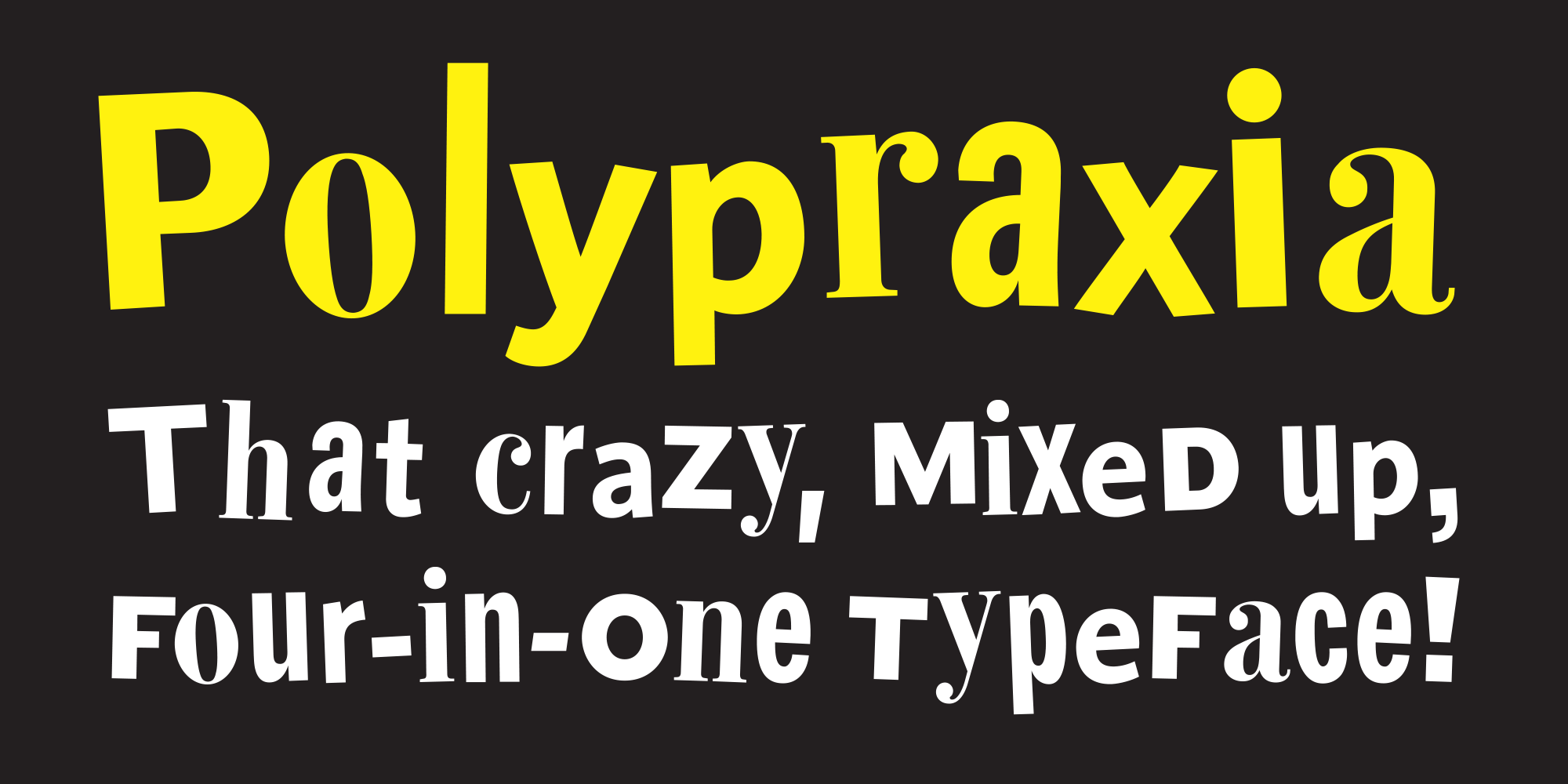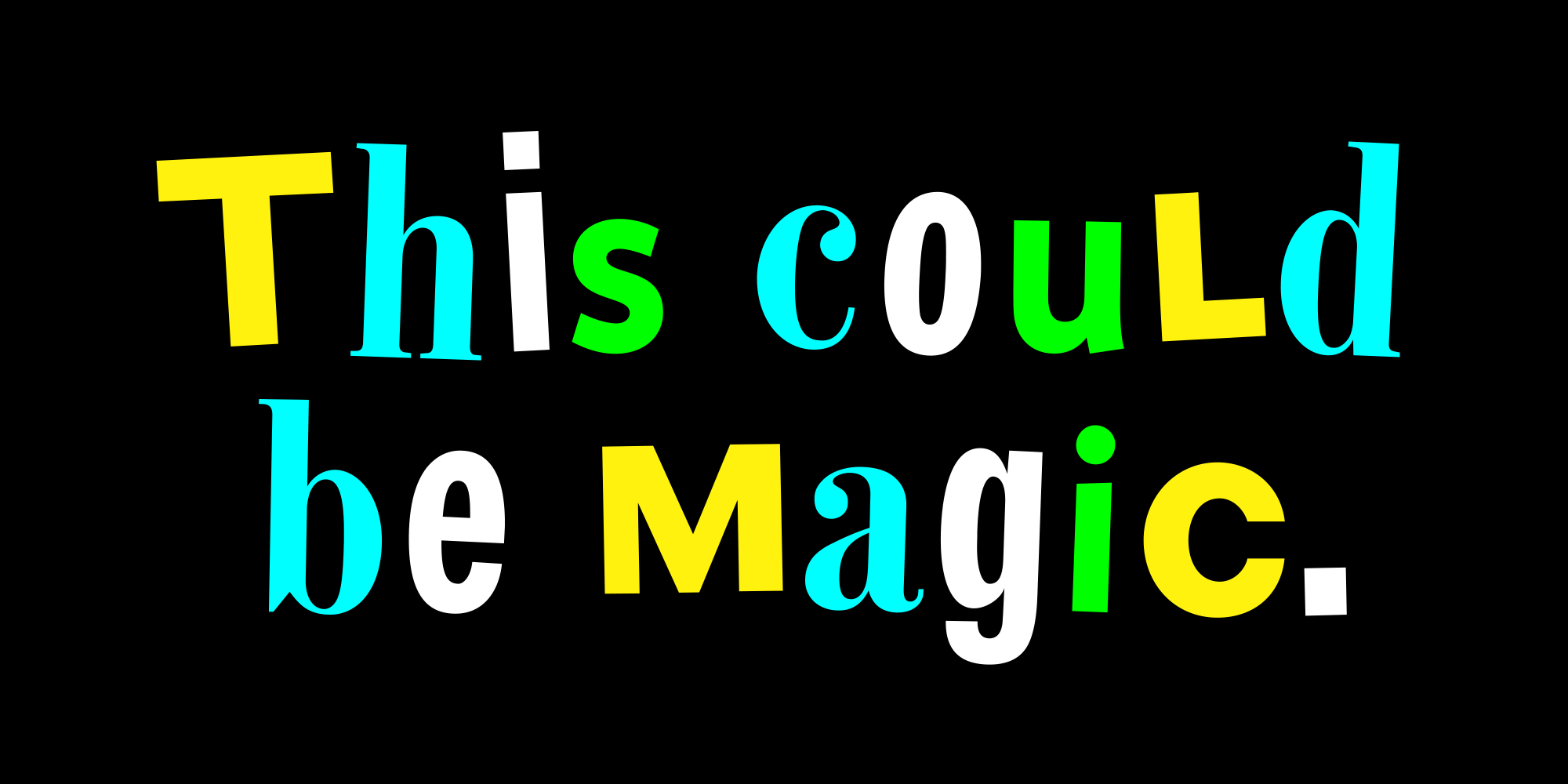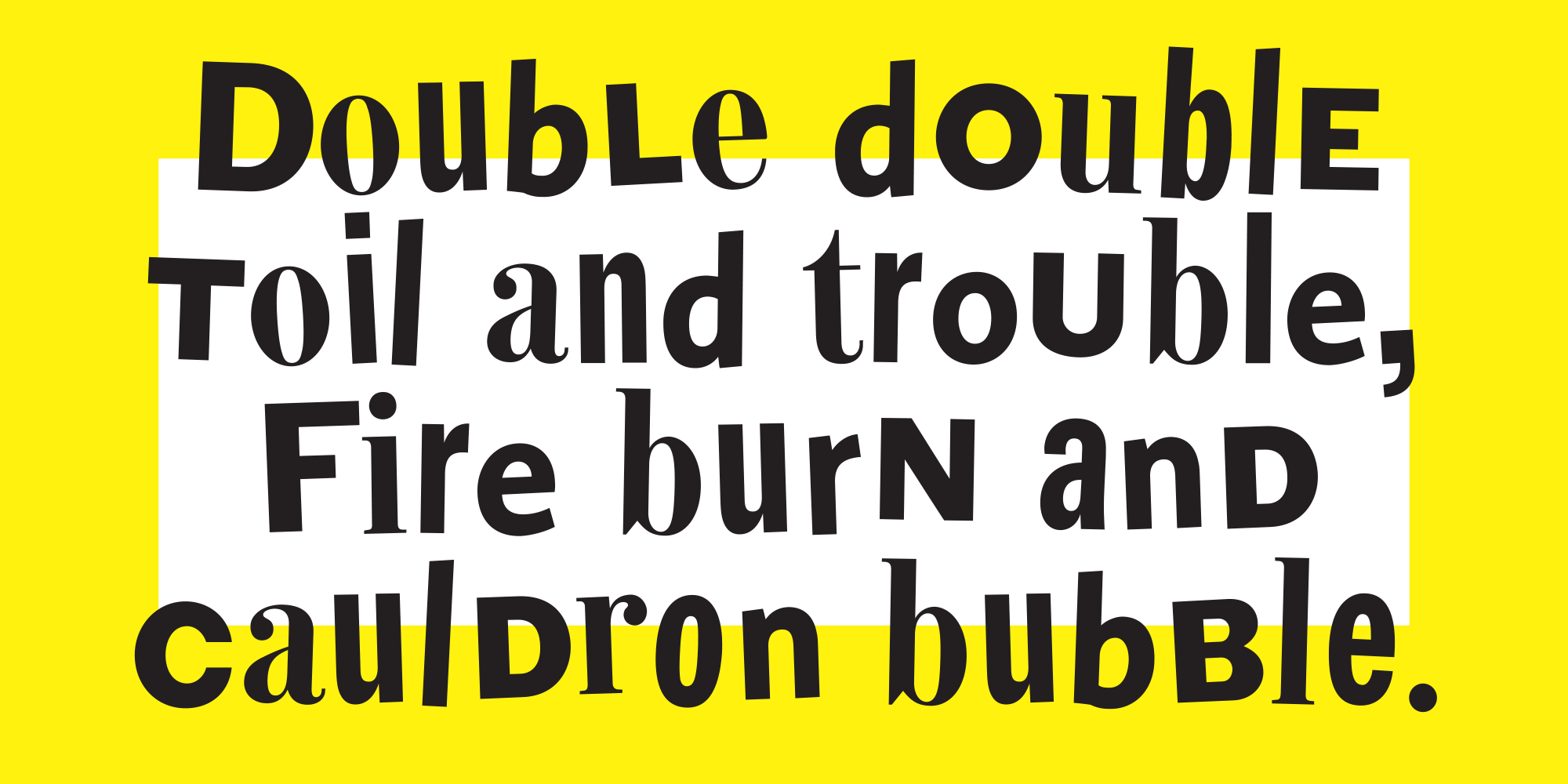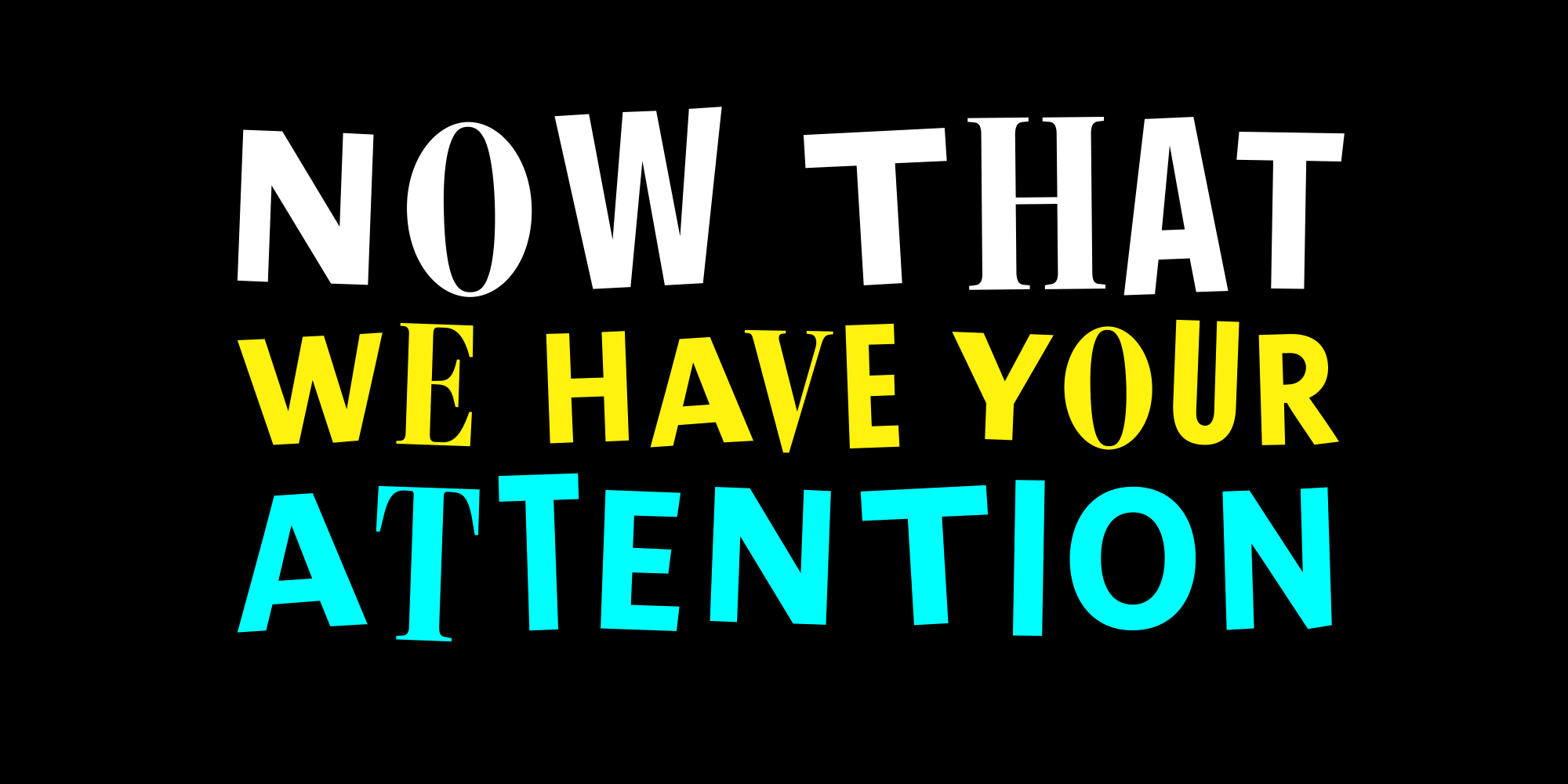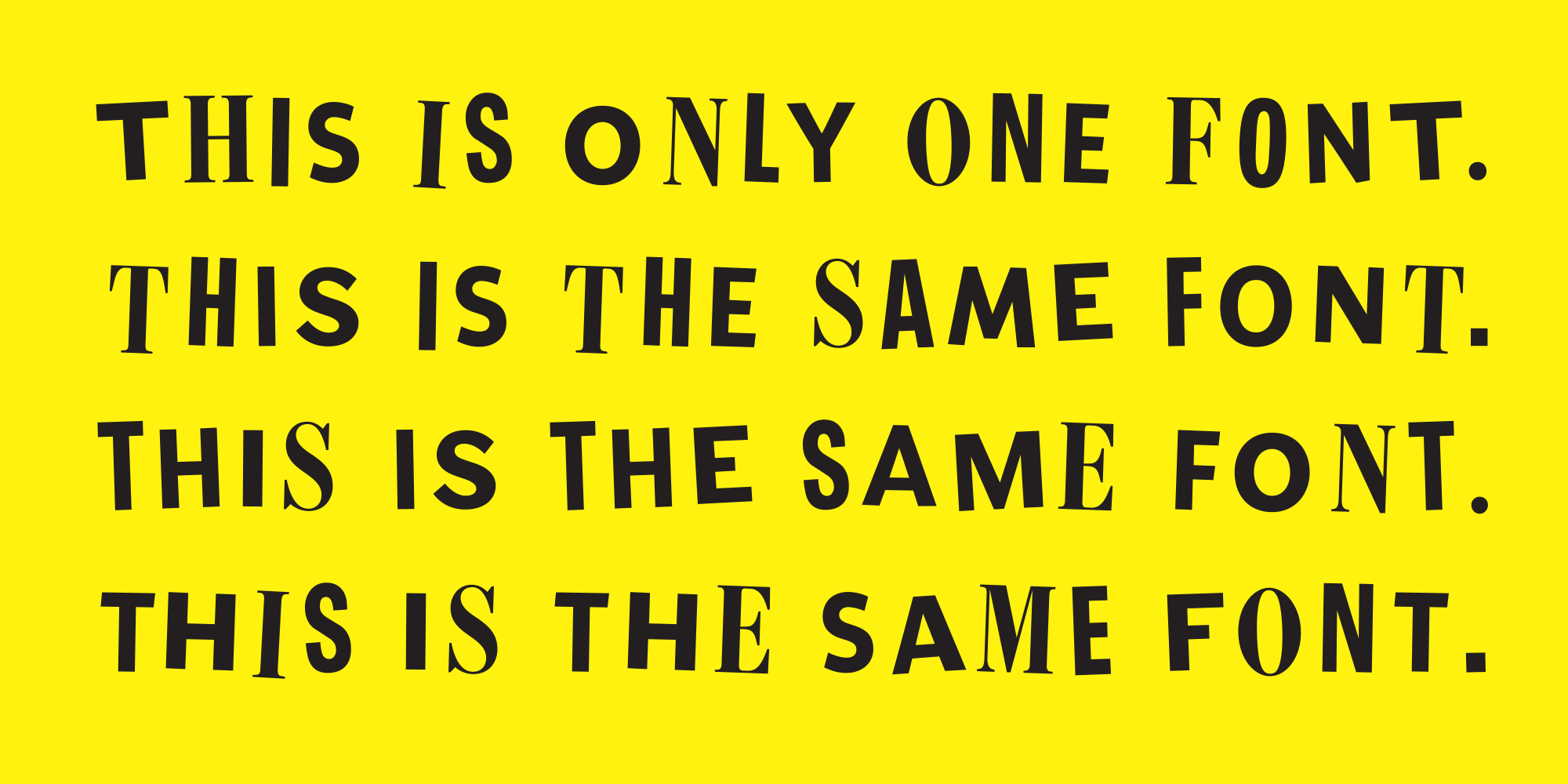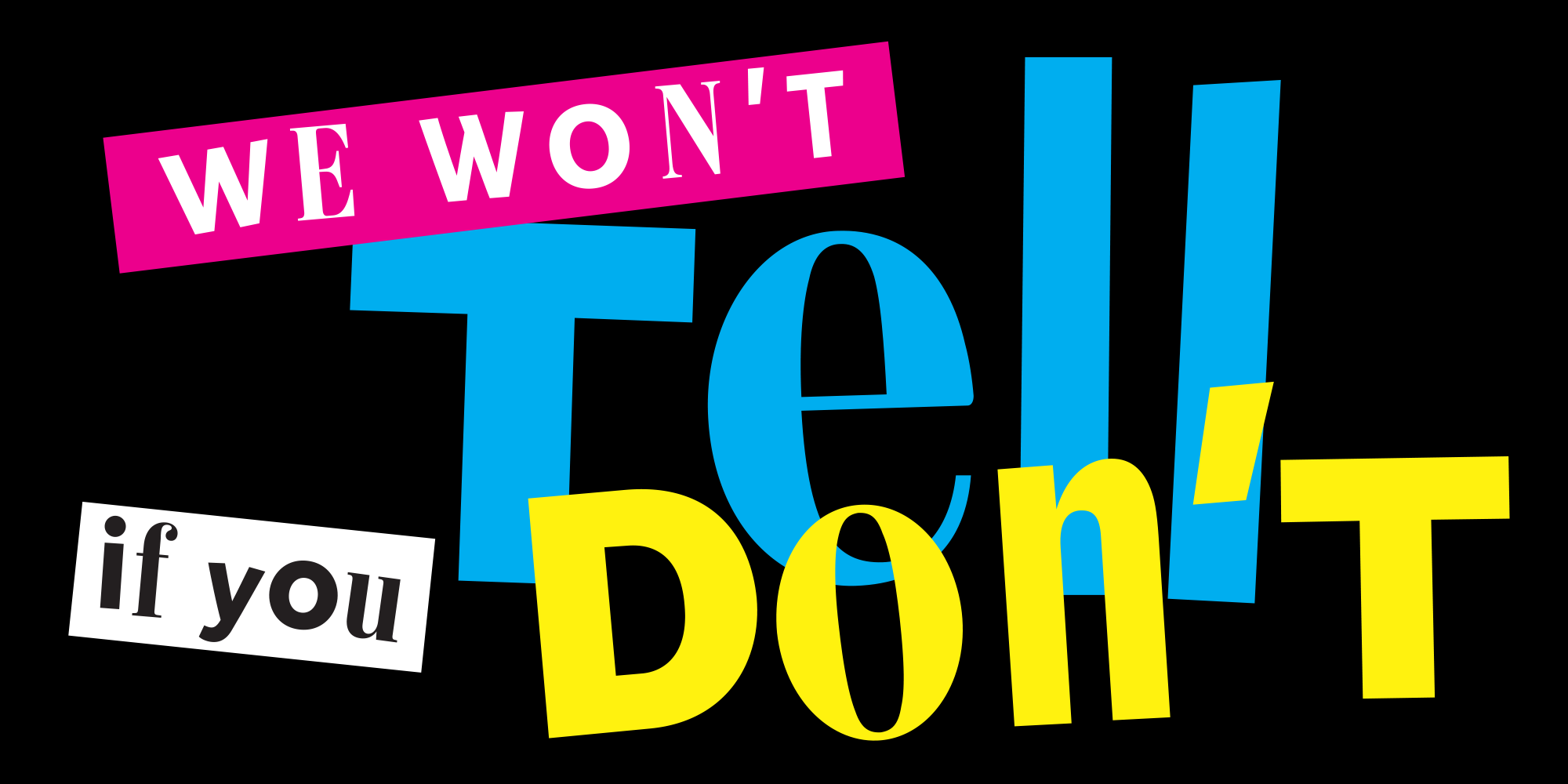
Polypraxia (1 font)
It wasn’t quite so simple as I had expected—in order for whatever combination of letters being set in the font to appear reasonably consistent, the four styles have to be distinct enough to look like four different styles, and yet still possess a modicum of even colour, without a pseudo-random sequence of glyphs looking like they all belong to the same style, or the odd glyph jumping out as markedly different from the rest. Thus the four styles are the same bold weight, in (1) a condensed didone, (2) a condensed grotesque, (3) a humanist sans, and (4) a caps-with-small-caps geometric sans. It would seem that for typography some persistence of fluency is required, even in a “disfluent” font. As ever, a balance of unity and variety.